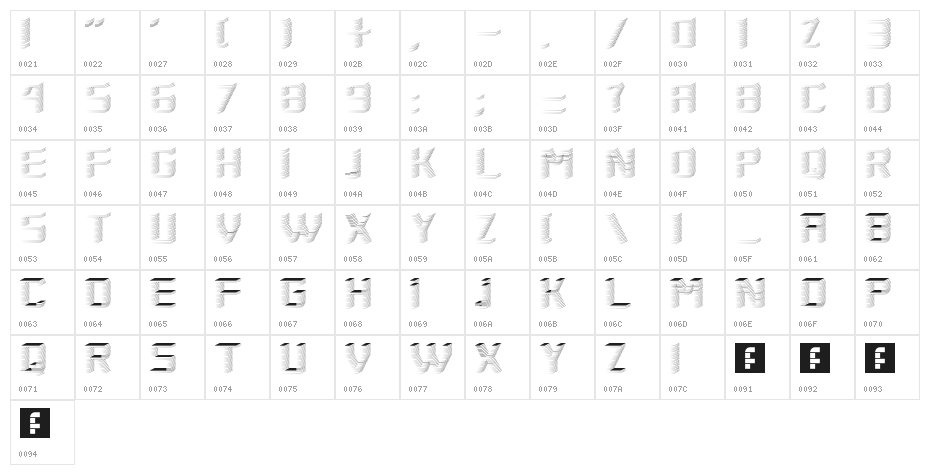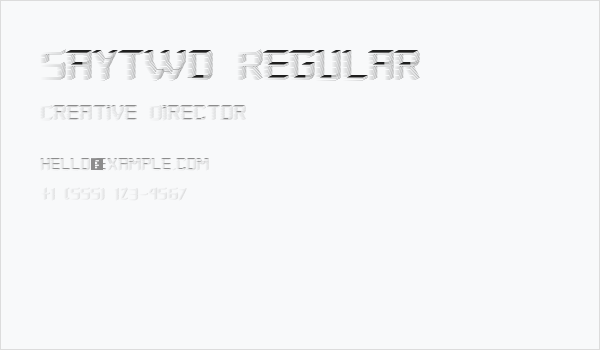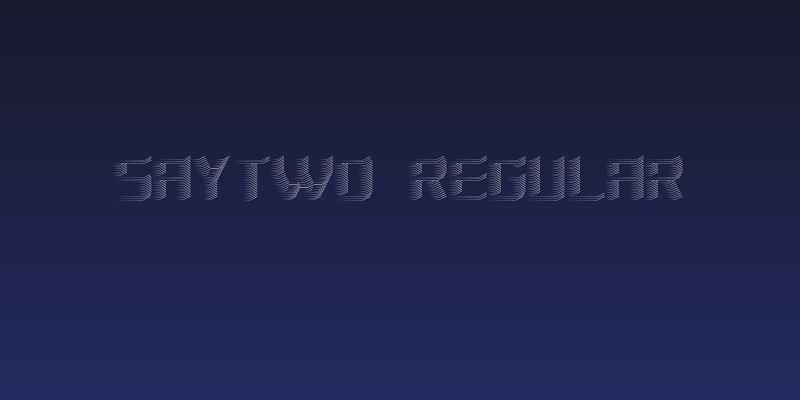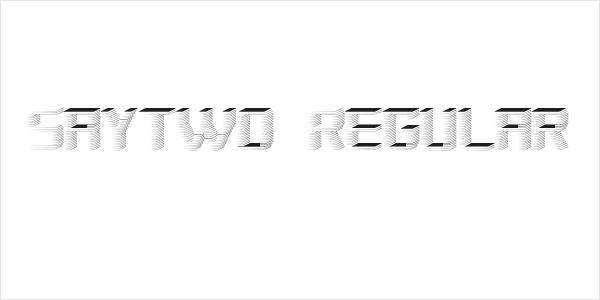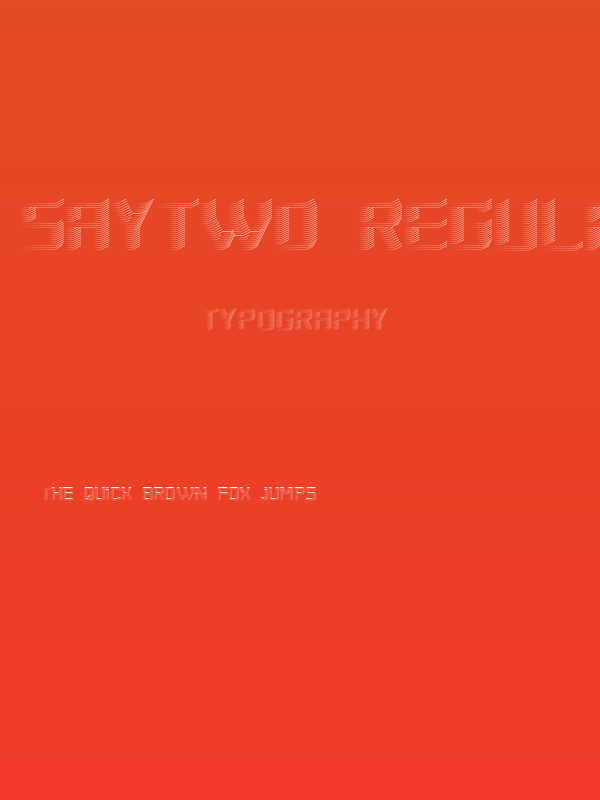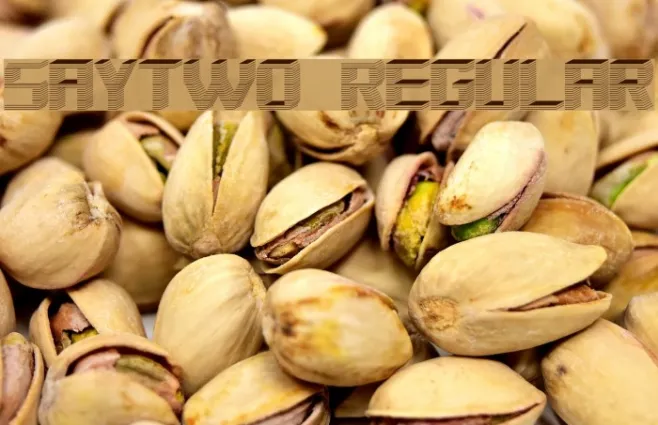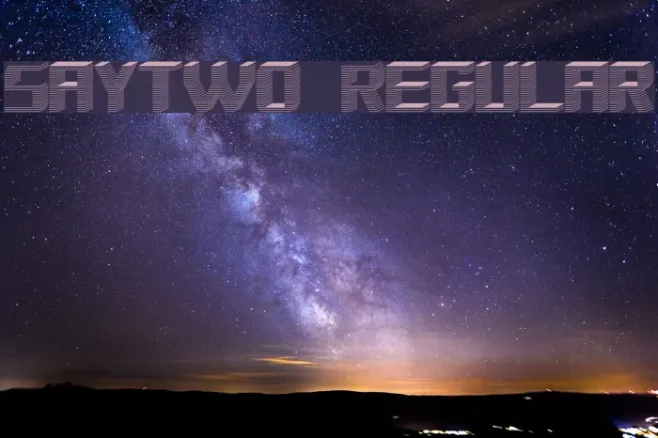
Saytwo Regular Font
Saytwo Regular Description
This font features a unique, layered design with horizontal lines creating a sense of depth and dimension. The uppercase and lowercase letters, along with numbers and special characters, are constructed with a consistent pattern of parallel lines, giving it a futuristic and digital appearance. The geometric shapes are bold and structured, making it stand out in any design. The font's distinct style is both modern and decorative, suitable for projects that require a strong visual impact.
| Proposed Projects | Ideal for digital art, tech-themed posters, video game graphics, and futuristic branding. |